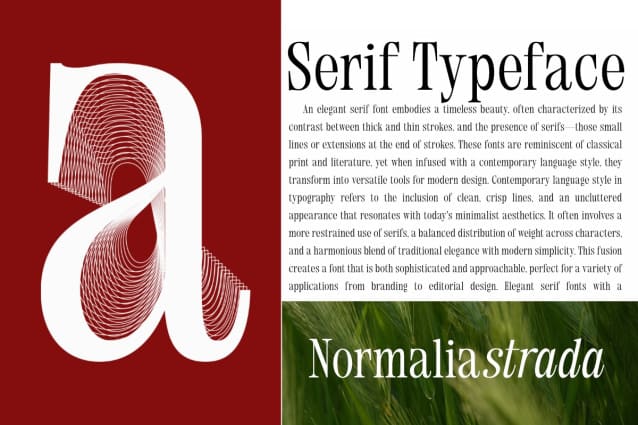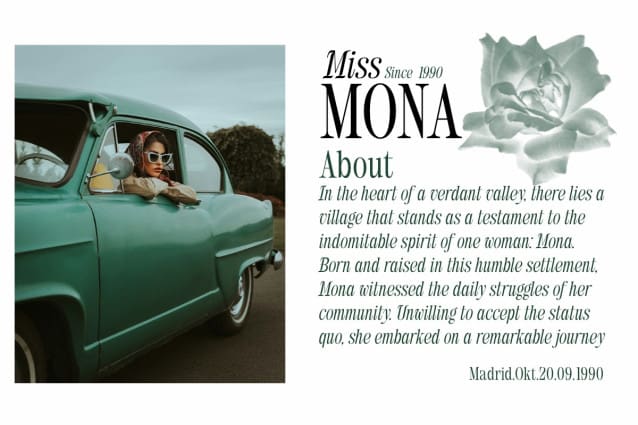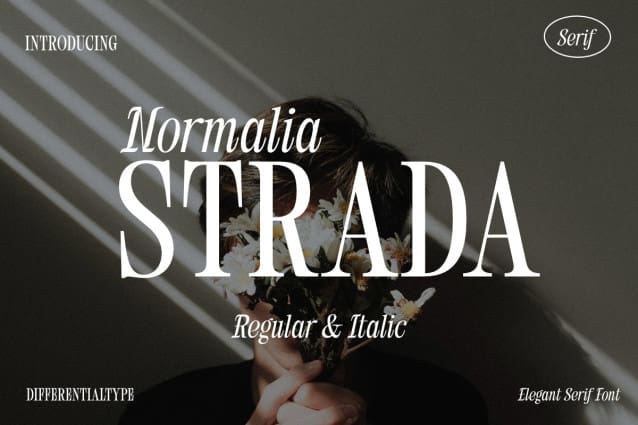
Normalia Strada Font
Normalia Strada Font, a striking serif font reflecting vintage elegance. It presents you with two unique styles: regular and italic. Featuring an intriguing divergence in the uppercase italic character from its regular counterpart, Normalia Strada also offers an alternate regular style for your creative indulgence. Prioritizing aesthetic appeal combined with readability, this font lends itself to countless designs from news headlines, editorial use, majestic logos to sophisticated invitation cards. Best of all, Normalia Strada is PUA encoded, granting you effortless access to all its glyphs and alternates. Immerse yourself in Normalia Strada, where vintage charm meets flawless design